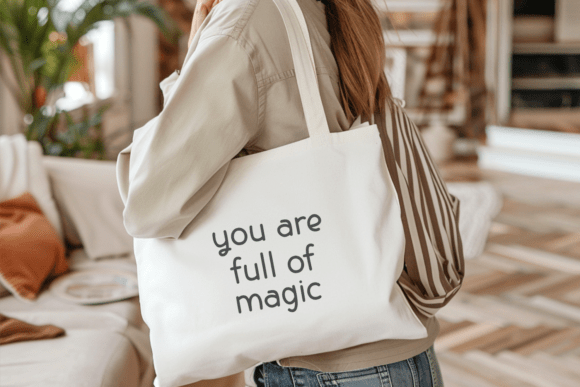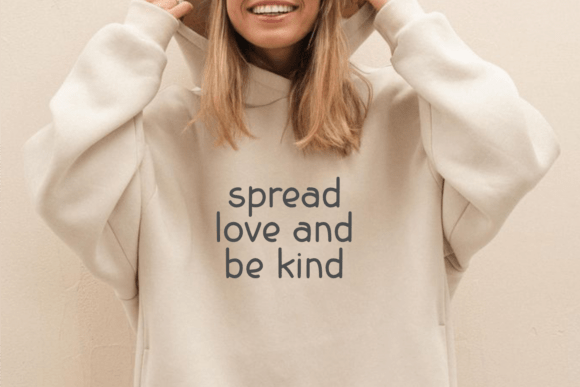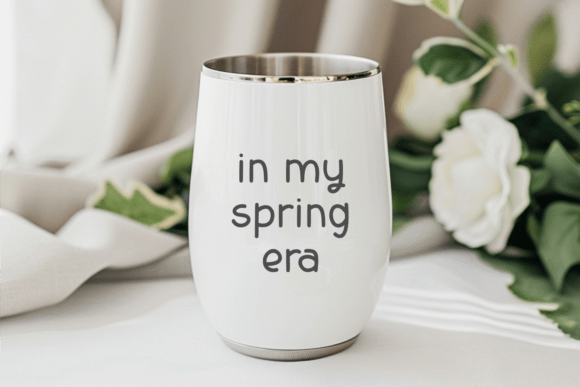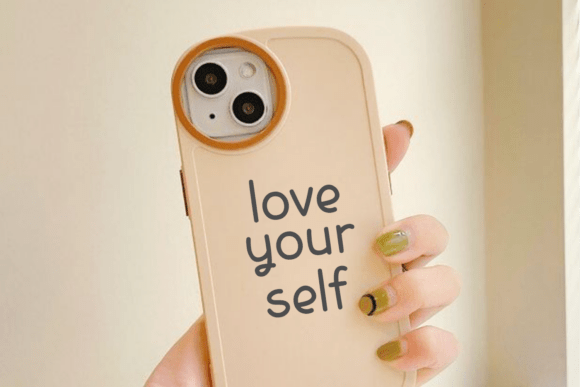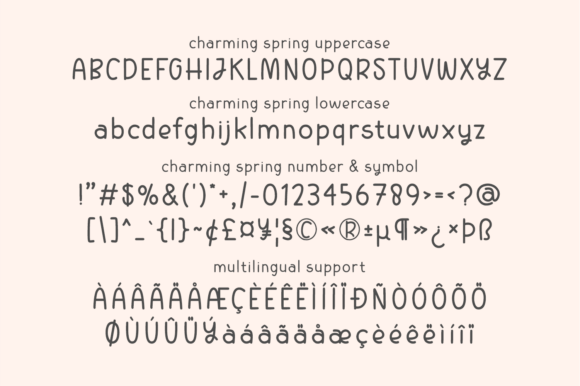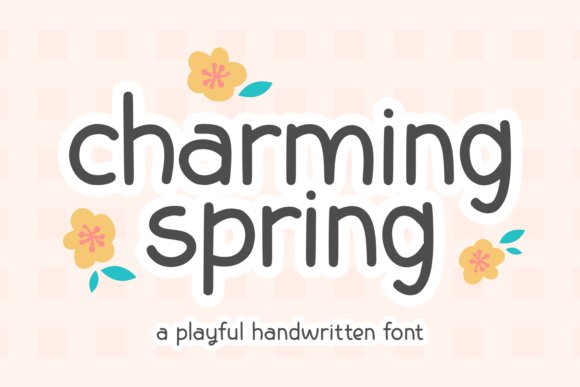
Introducing Charming Spring Font: Add a Playful Touch to Your Designs
Are you looking for a font that can bring a burst of energy and playfulness to your designs? Look no further than Charming Spring, a delightful handwritten font that’s perfect for creating cheerful and eye-catching content. In this article, we’ll dive into the features and benefits of Charming Spring, and explore how you can use it to elevate your designs.
Handwritten fonts have a unique ability to add a personal touch to any design. They evoke a sense of warmth, friendliness, and approachability, making them perfect for designs that want to connect with their audience on a more emotional level. Charming Spring is no exception, with its playful and energetic handwriting style that’s sure to capture the hearts of your audience.
What Makes Charming Spring Special?
Charming Spring is a one-of-a-kind font that’s designed to bring a sense of joy and excitement to your designs. Here are some of its standout features:
- Round and Soft Shapes: Each letter in Charming Spring has a round and soft shape, giving it a natural and adorable impression.
- Slight Imperfections: The font has slight imperfections that add to its handmade charm, making it feel more approachable and relatable.
- Cute Curves: Charming Spring features cute curves and slightly unusual proportions, giving each word a unique and entertaining touch.
Perfect for Spring-themed Designs
As its name suggests, Charming Spring is perfect for spring-themed designs. The font’s cheerful and energetic style is ideal for:
- Spring Greeting Cards: Create beautiful and eye-catching greeting cards that capture the spirit of the season.
- Garden Party Invitations: Invite your friends and family to a garden party with stylish and charming invitations.
- Family Event Posters: Create posters for family events, such as Easter egg hunts or Mother’s Day celebrations.
Beyond Spring: Versatility in Design
While Charming Spring is perfect for spring-themed designs, its versatility means it can be used in a wide range of projects, including:
- Children’s Product Designs: Create fun and engaging designs for children’s products, such as toys, books, or clothing.
- Snack Brand Logos: Add a playful touch to snack brand logos, making them more appealing to a younger audience.
- Spring-themed Social Media Content: Create eye-catching social media content that captures the spirit of the season.
Why Choose Charming Spring?
With so many fonts available, why choose Charming Spring? Here are just a few reasons:
- Unique Style: Charming Spring has a unique and distinctive style that’s sure to stand out in a crowded design landscape.
- Ease of Use: The font is easy to use and pairs well with a wide range of other fonts, making it perfect for designers of all levels.
- Emotional Connection: Charming Spring has the ability to create an emotional connection with your audience, making your designs more relatable and engaging.
In conclusion, Charming Spring is a delightful handwritten font that’s perfect for designers and crafters looking to add a playful touch to their designs. With its unique style, ease of use, and emotional connection, it’s an ideal choice for a wide range of projects. Whether you’re creating spring-themed designs or looking for a font that can bring a burst of energy to your content, Charming Spring is sure to delight.